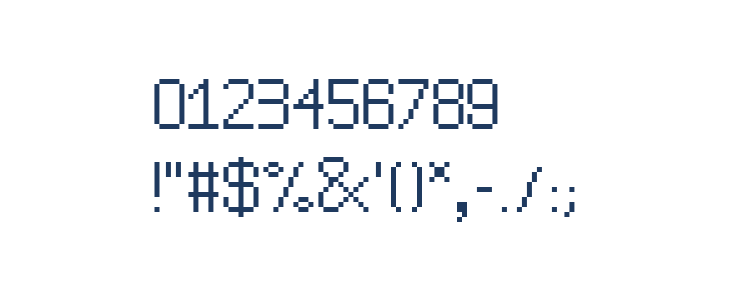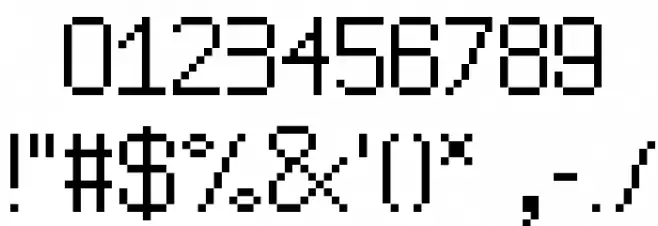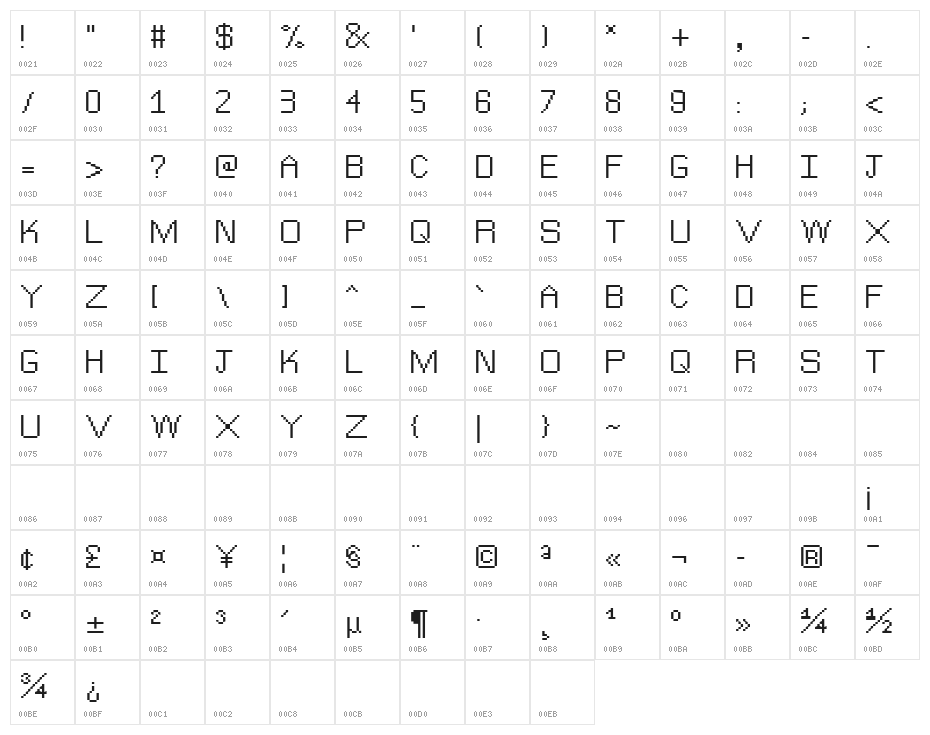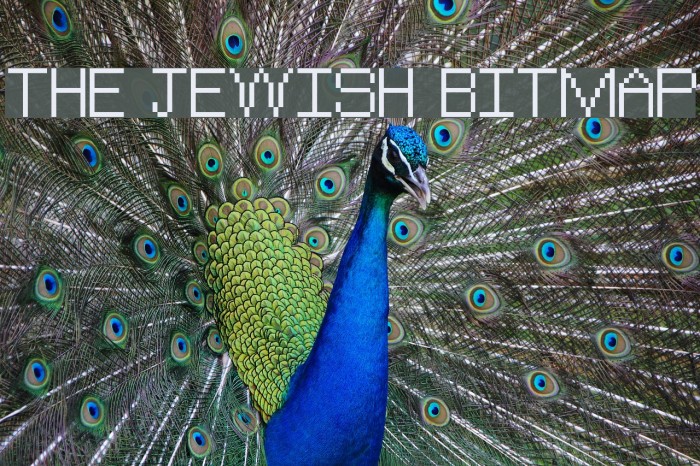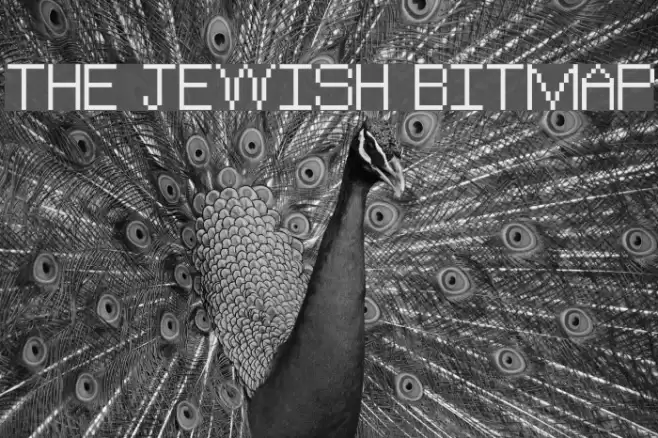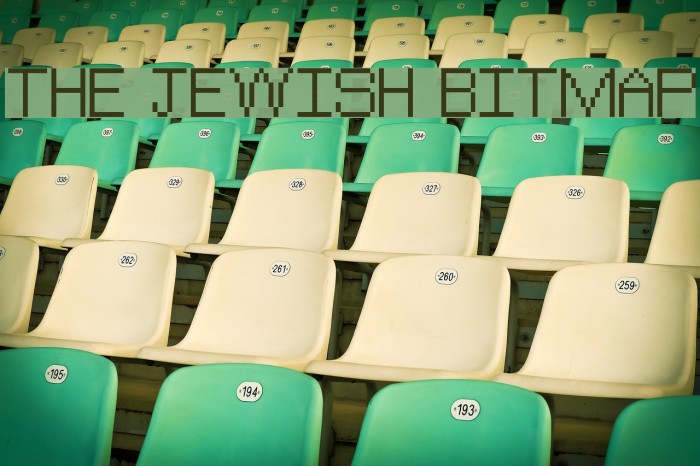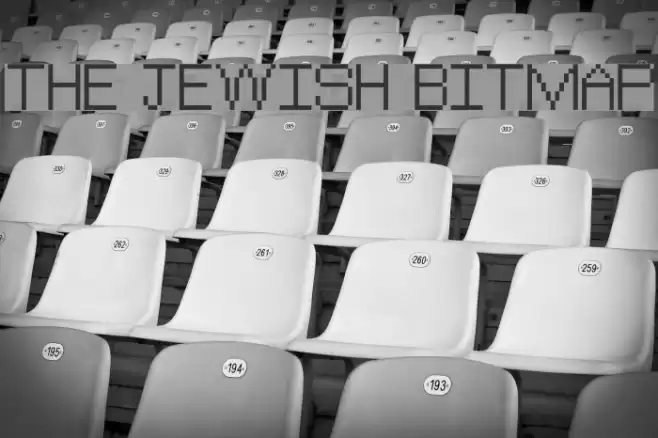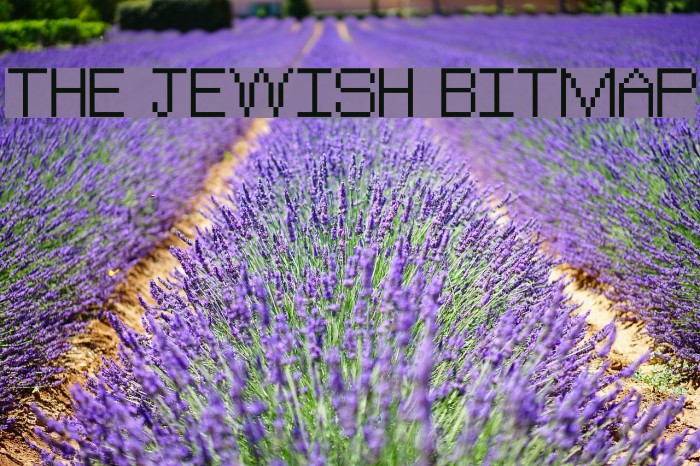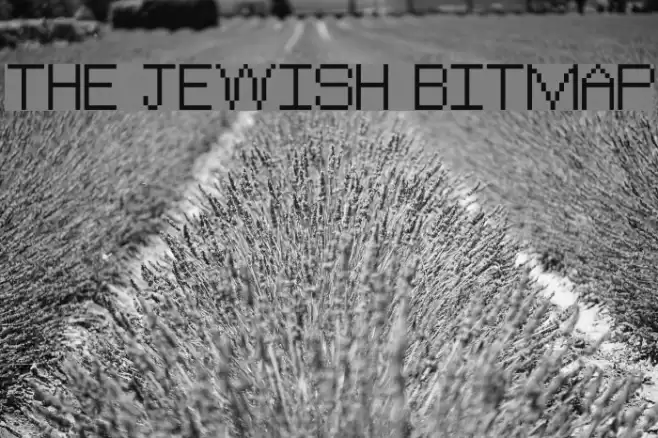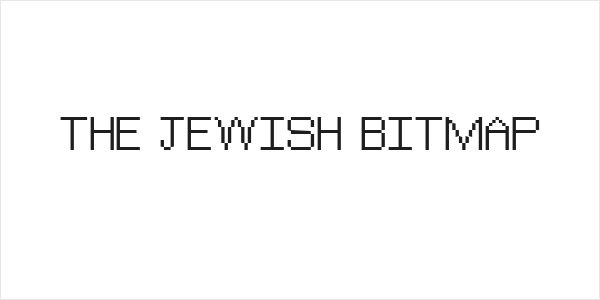
The Jewish Bitmap Font
The Jewish Bitmap Description
This font features a pixelated, bitmap style that is reminiscent of early digital displays and retro video games. Each character is constructed with a grid-like precision, giving it a distinctly digital aesthetic. The uppercase and lowercase letters maintain a consistent height, while the numerals and special characters are designed to complement the overall geometric structure. The characters are evenly spaced, ensuring readability despite the pixelated design. This font is ideal for projects that aim to evoke nostalgia or a retro-futuristic feel.
| Use Case | Logos, Headlines, Digital Art |
| Proposed Projects | Ideal for retro video game designs, digital art projects, or any creative work that seeks to capture a nostalgic, digital feel. |